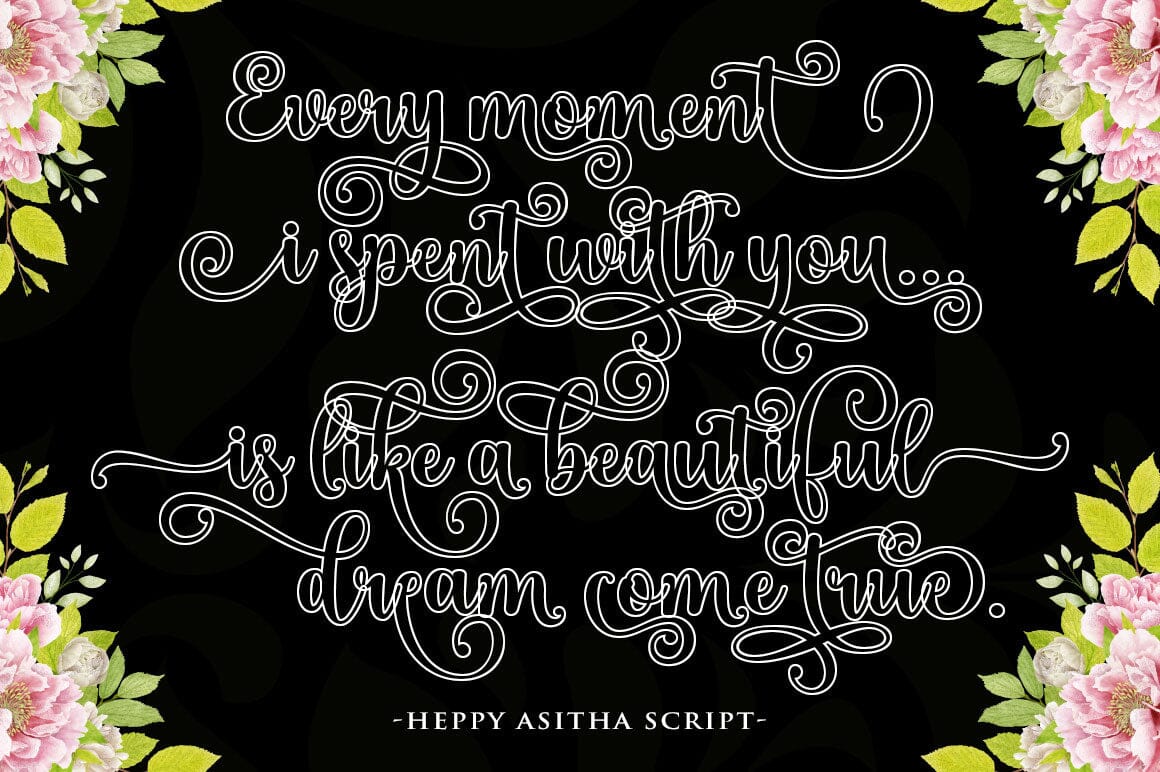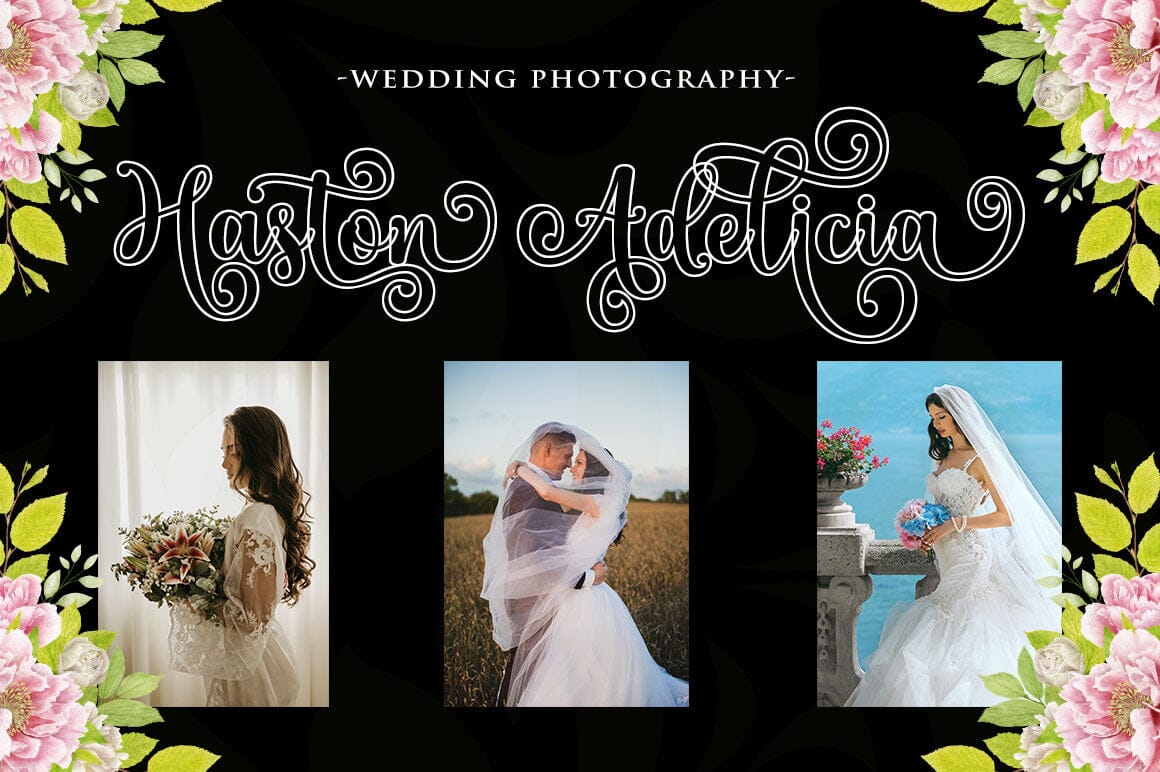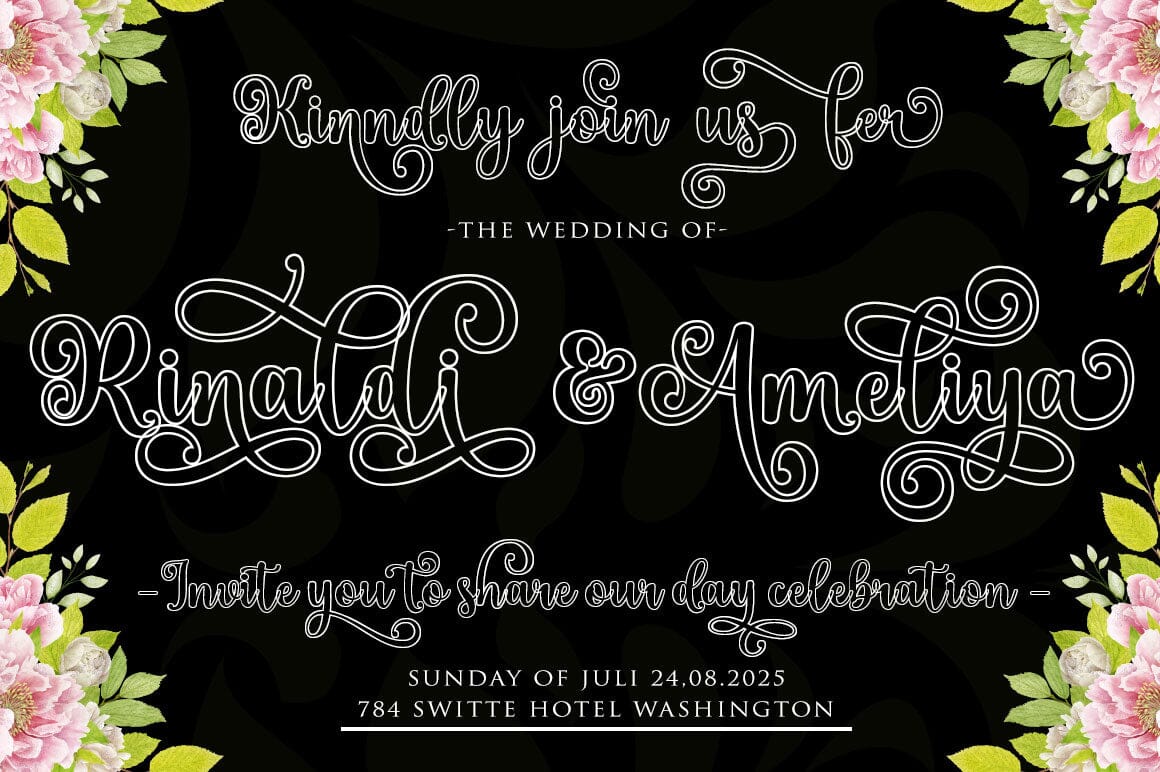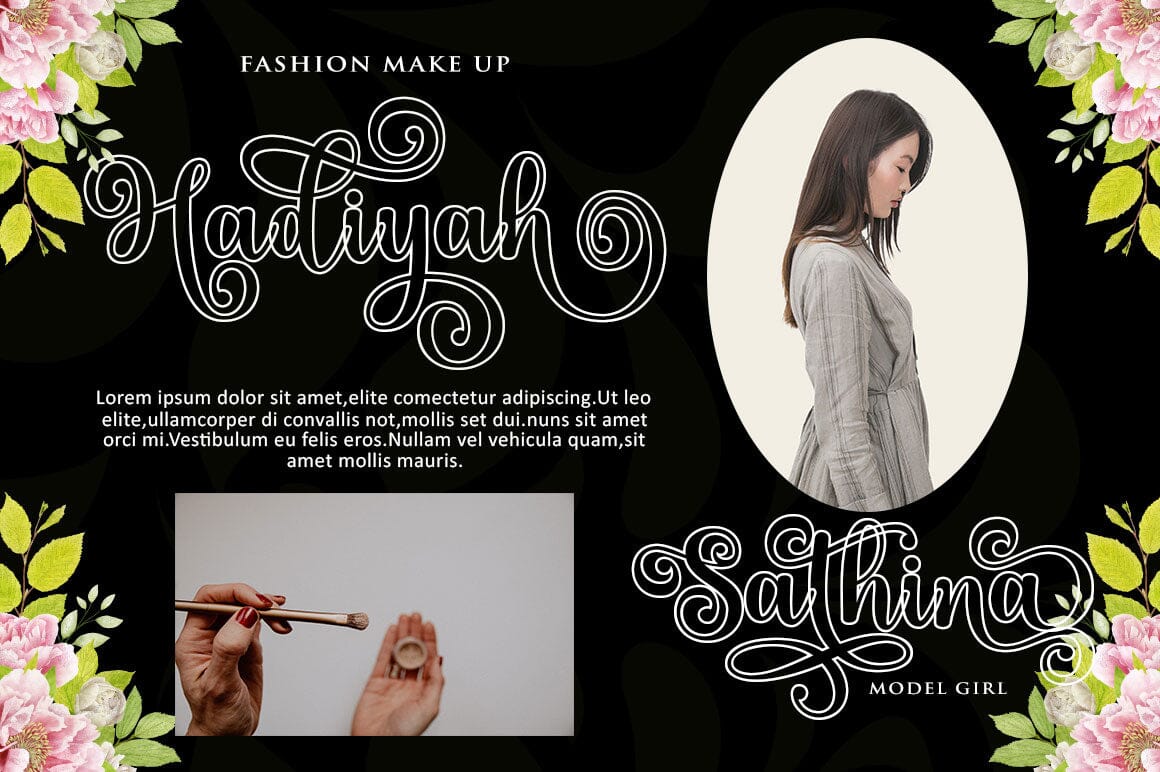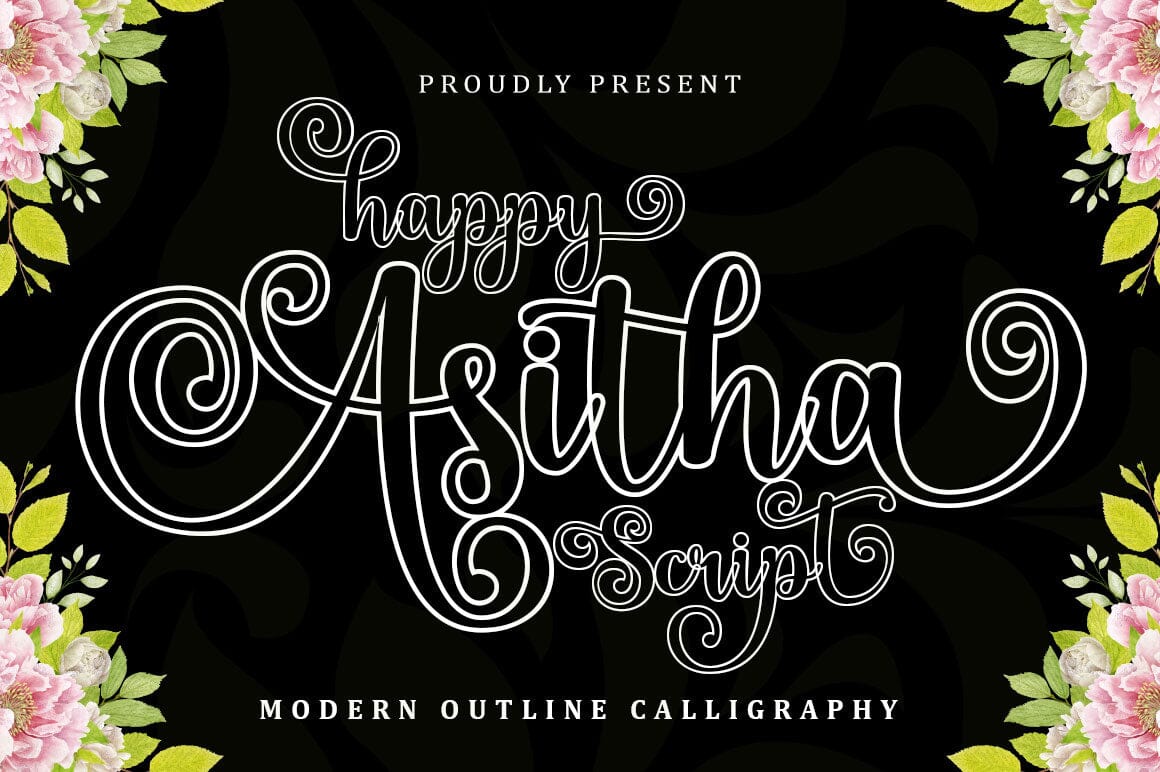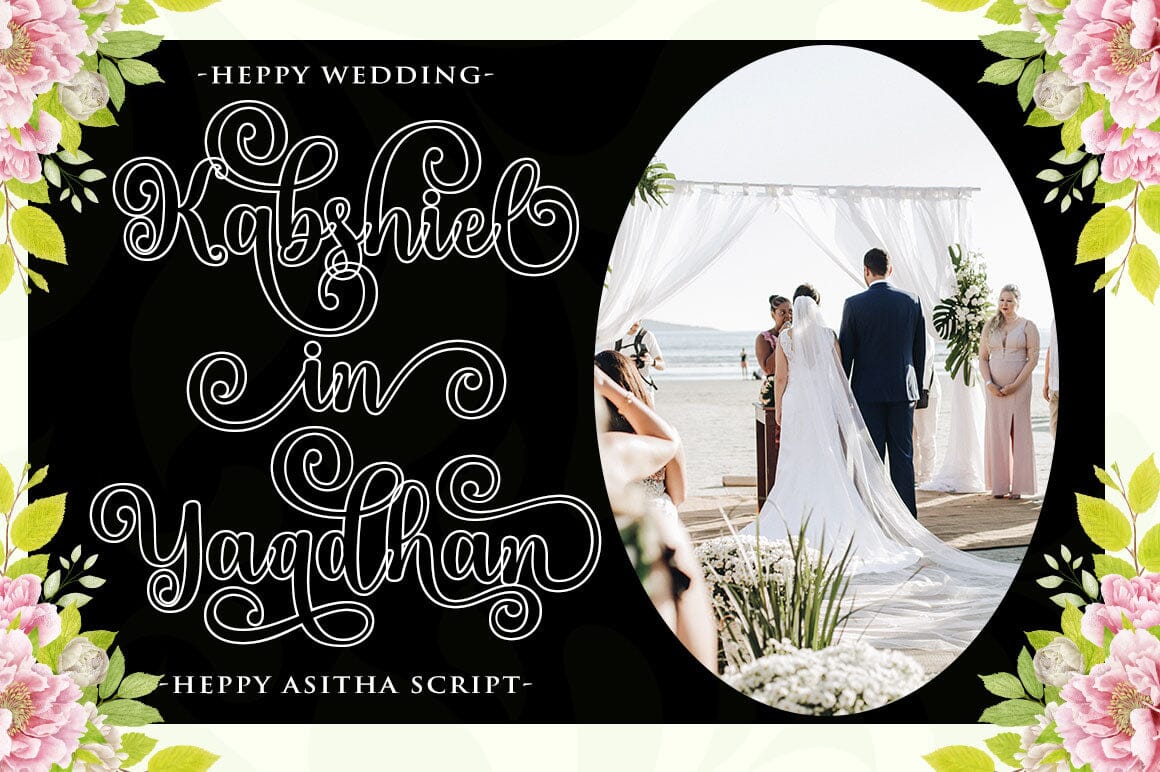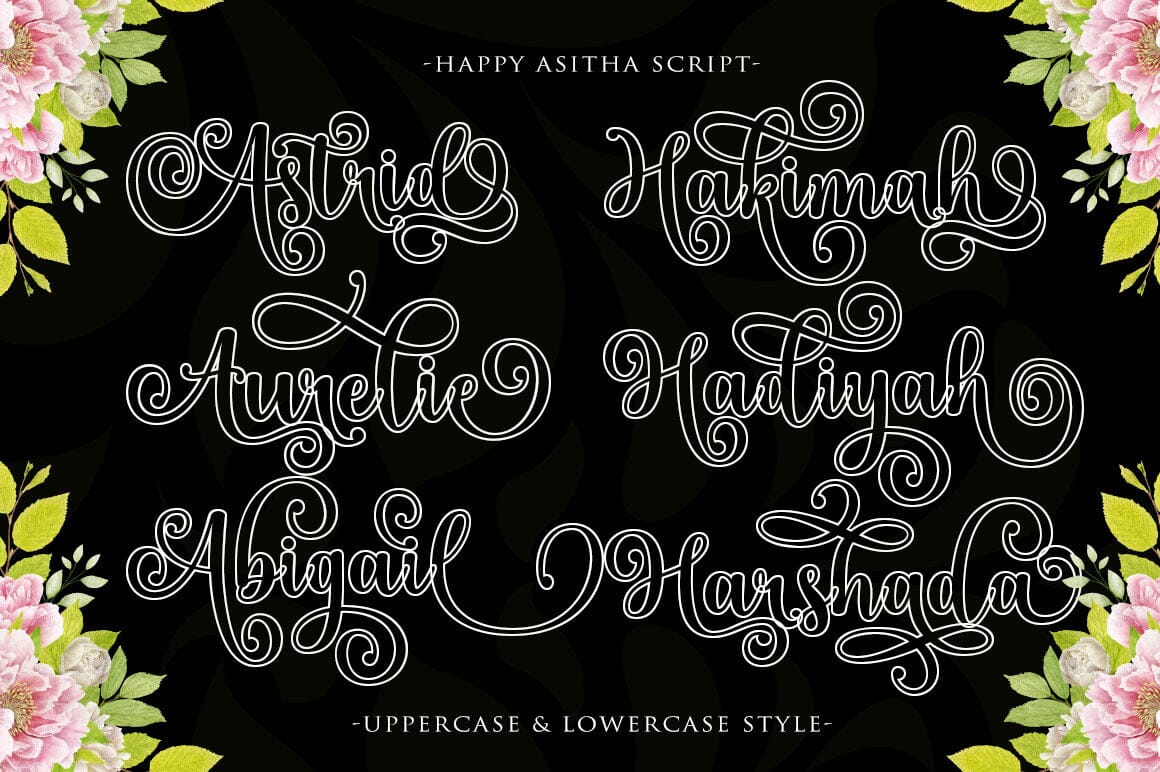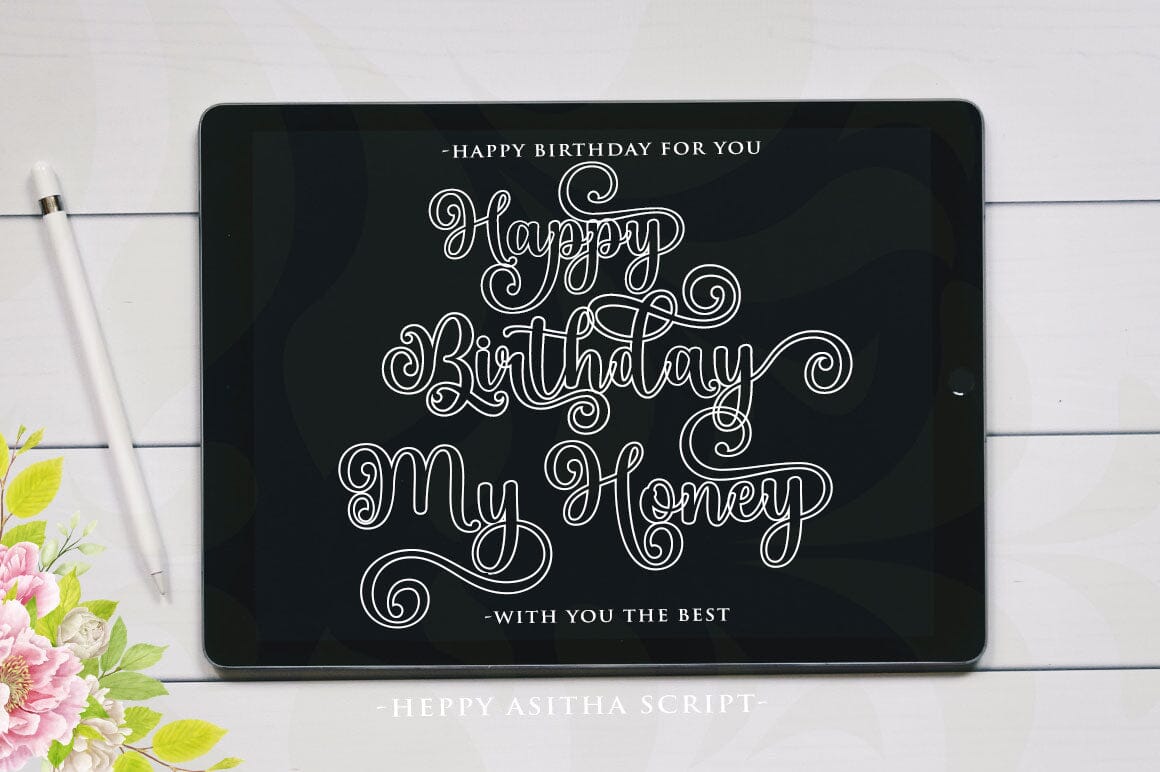
Happy Asitha Script
About Happy Asitha Script
Happy Asitha Script is a modern calligraphic design, incl Regular. This font is casual and pretty with a stroke. Can be used for various purposes. such as logos, product packaging, wedding invitations, branding, headlines, signage, labels, signatures, book covers, posters, quotes, and more. Happy Asitha Script includes a changes to OpenType language styles, bindings and international support for most western languages. To enable OpenType Stylistic alternatively, you need a program that supports OpenType features such as Adobe Illustrator CS, Adobe Indesign & CorelDraw X6-X7, Microsoft Word 2010 or a later version. How to access all alternative characters using Adobe Illustrator: https://www.youtube.com/watch?v=XzwjMkbB-wQ Happy Asitha Script is coded with Unicode PUA, which allows full access to all additional characters without having to design special software. mac users can use Font Book, and Windows users can use Character Map look and copy any of the extra characters to enter in favorite text editor/application. How to access all alternatives character, using the Windows Character Map with Photoshop: https://www.youtube.com/watch?v=Go9vacoYmBw If you need help or have questions, let me know. I’m happy to help 🙂 Thanks & Happy Designing!